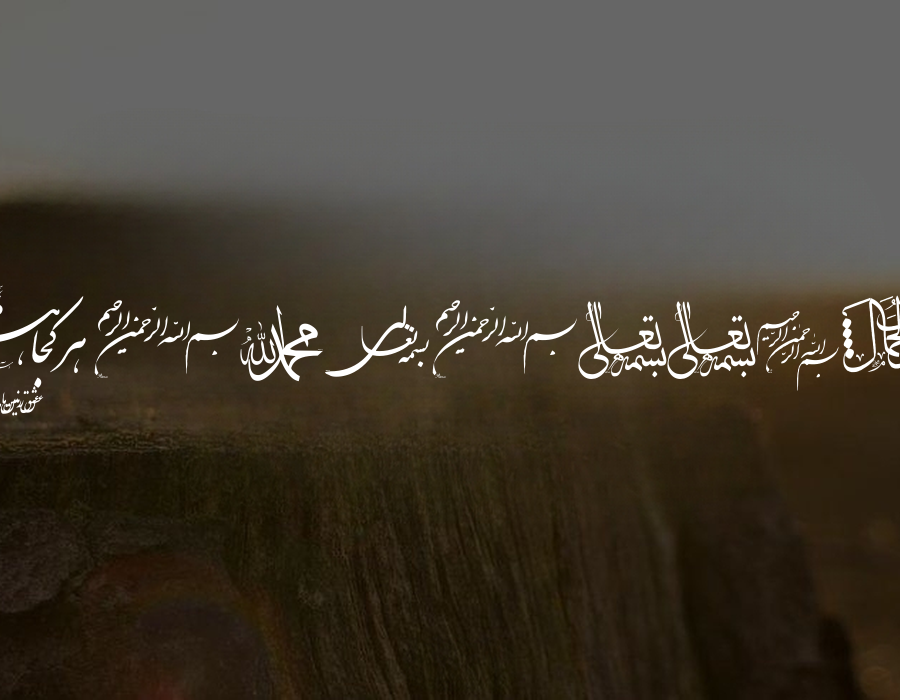
About Arabic Bismillah Font
"Arabic Bismillah Font" refers to specialized decorative typefaces or calligraphic designs created solely for the beautiful rendering of the Islamic phrase "Bishmillah al-Rahman al-Rahim" ("In the name of God, the Most Gracious, the Most Merciful"). These are not typical text fonts but are intricate, often ornate compositions that follow the rules of Arabic calligraphy (like Thuluth or Diwani script). They are used in mosque decoration, religious booklets, wedding invitations, Islamic software, and wall art to honor the sacred text with appropriate artistry and respect.